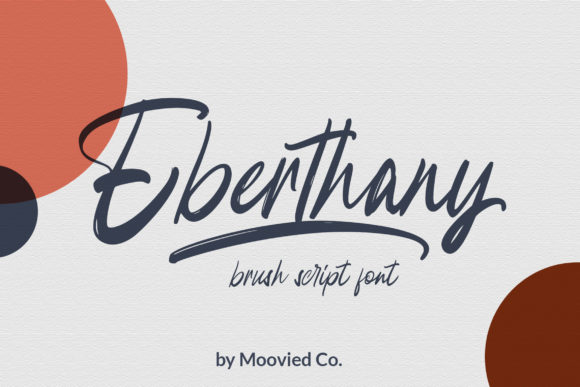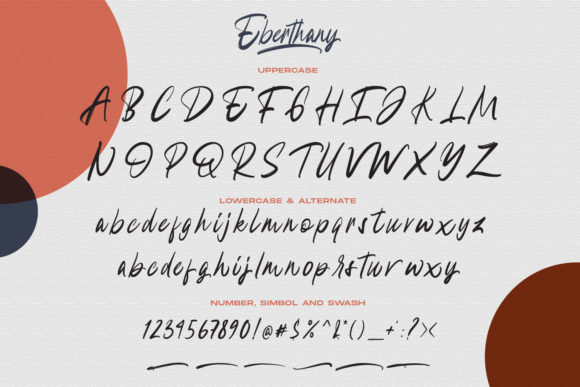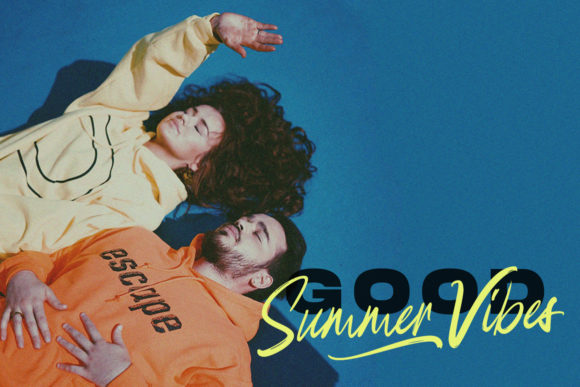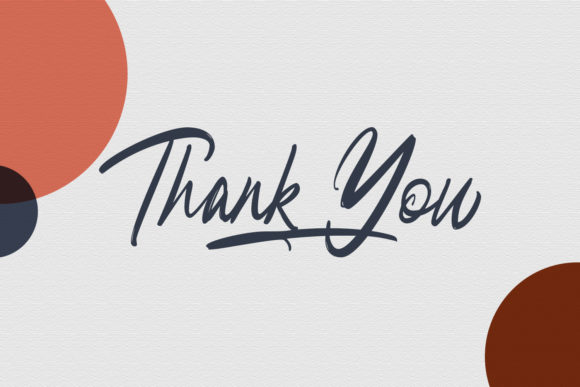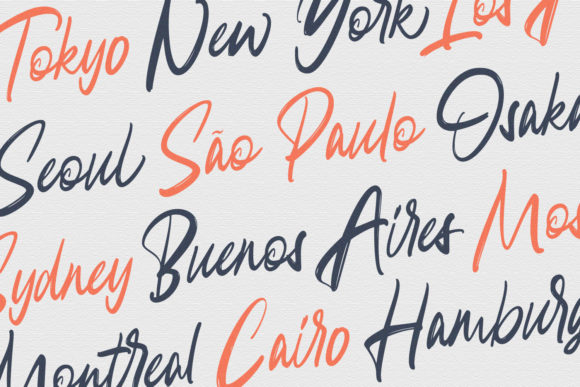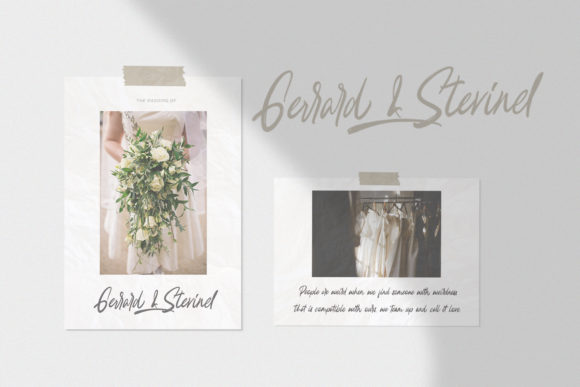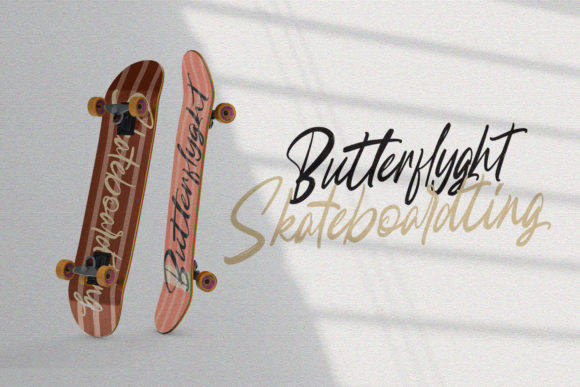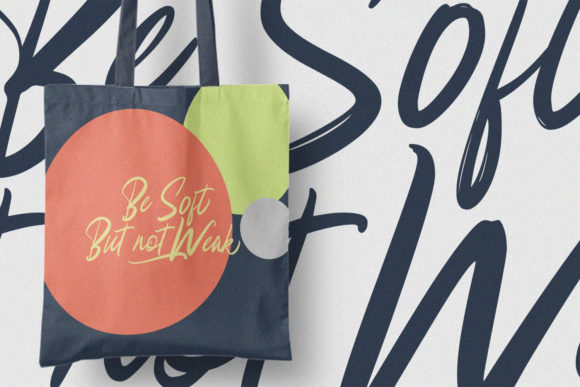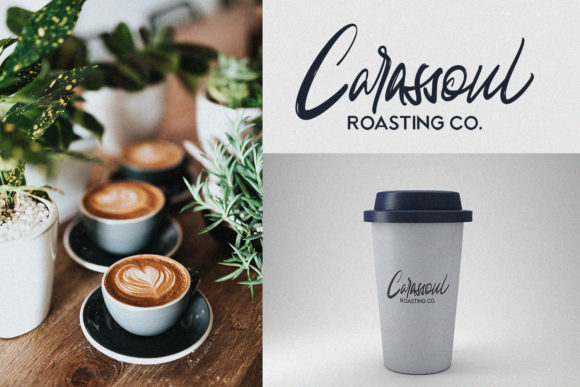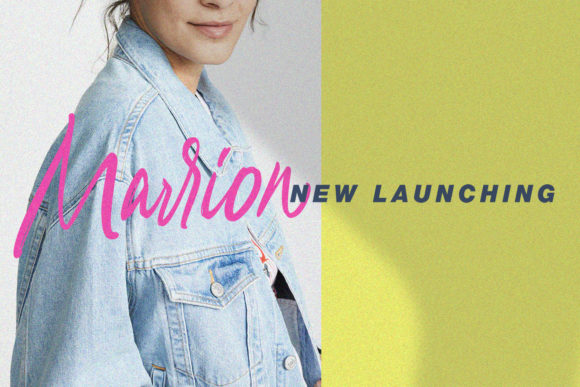
Eberthany Brush Font
About Eberthany Brush Font
Eberthany is a cool and casual brush script with a contemporary feel. It will add an authentic twist to any design project.